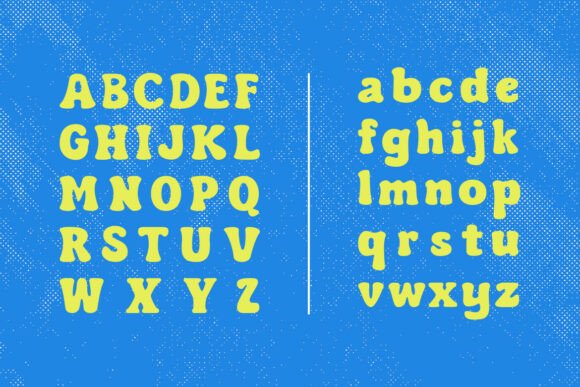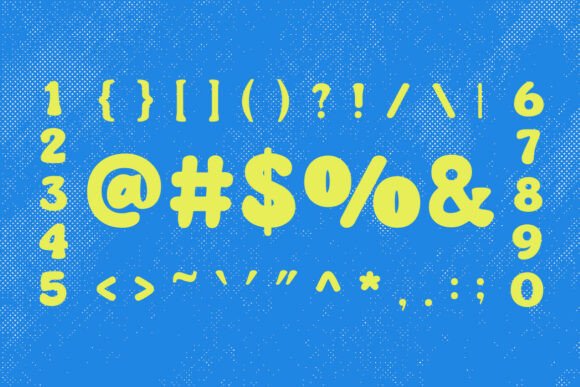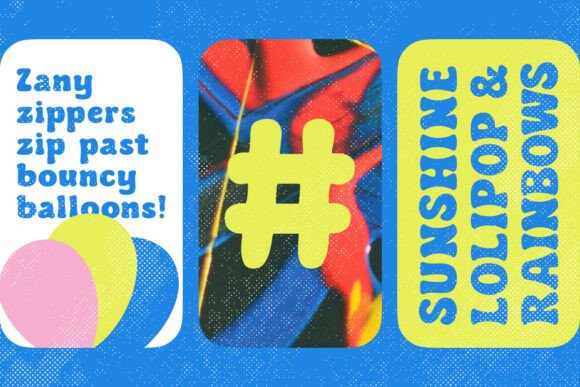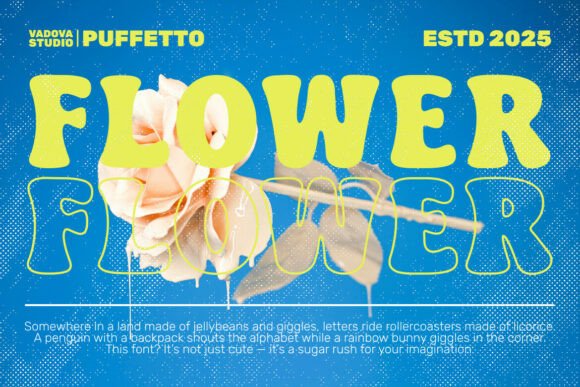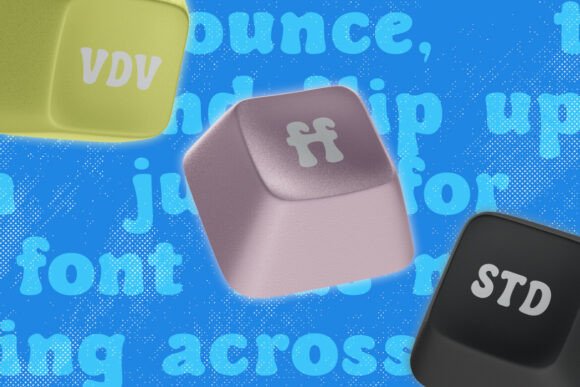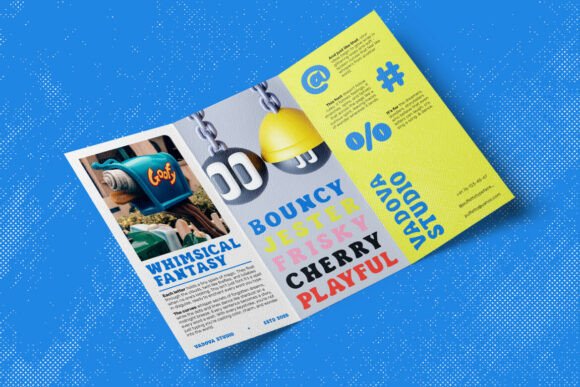
Introduction to Puffetto Font
Remember that moment when you finally nailed the design for your kid’s birthday party invitation? The colors popped, the fonts danced, and the whole thing felt like a party. That’s what the Puffetto Font is all about – bringing joy and personality to your creative work. With its chunky letterforms and bouncy rhythm, this modern typeface is perfect for kids’ products, playful branding, posters, packaging, and editorial headlines.
As a designer, you know how hard it can be to find the perfect font to elevate your message. That’s why we’re excited to share the Puffetto Font with you. Whether you’re working on a free download or a high-quality design resource, this font is sure to bring a smile to your face and a spark to your creative project.
Key Features of Puffetto Font
- Unique, whimsical design ideal for creative projects and artistic expressions
- Perfect for use in digital design, graphic design, and visual arts, adding a touch of elegance and sophistication to any creative project
Honest Review: Puffetto Font
I recently had the chance to experiment with the Puffetto Font, and I must say it’s a unique addition to my design arsenal. ✨ The font’s whimsical and playful nature makes it perfect for creative projects that require a touch of personality.
- High-quality design: The Puffetto Font boasts crisp and clear lines, making it ideal for both digital and print applications.
However, there are some limitations to keep in mind ⚠️. The Puffetto Font might not be the best choice for professional or formal projects, as its playful nature may not be suitable for more conservative audiences.
Overall, I’m impressed with the Puffetto Font as a design resource. While it may not be for every project, it’s definitely worth exploring for those looking to add a bit of fun and whimsy to their creative endeavors. Whether you’re working on a personal or commercial project, this font is sure to inspire some creativity.
To get the most out of the Puffetto Font, experiment with different font sizes, colors, and combinations to create unique and eye-catching designs. You can also use it in conjunction with other design resources to create a cohesive and high-quality visual identity.
The Puffetto Font is perfect for a wide range of creative projects, including social media graphics, presentations, documents, and more. Its high-quality design and transparent background make it an ideal choice for designers and non-designers alike.